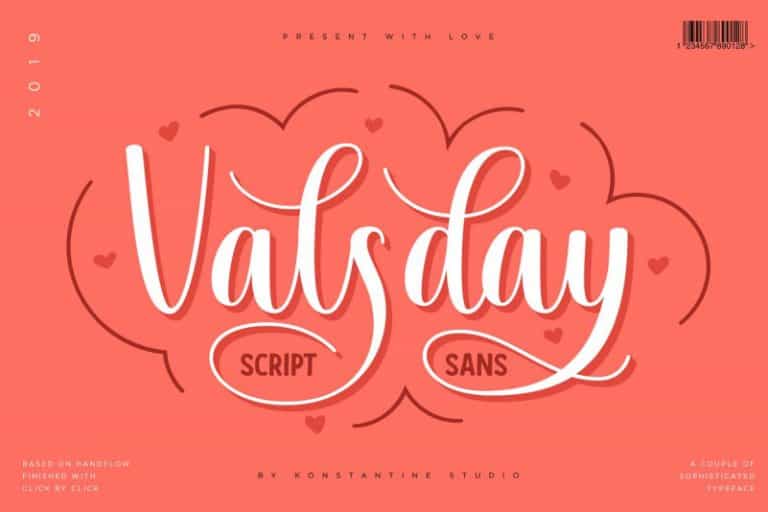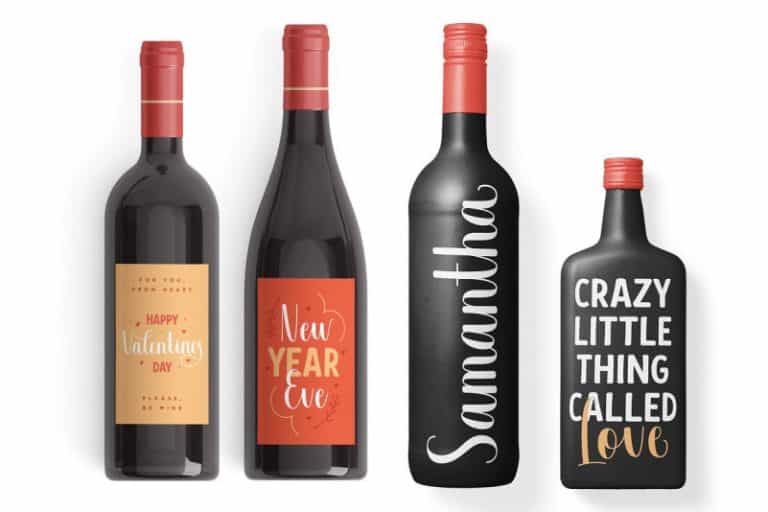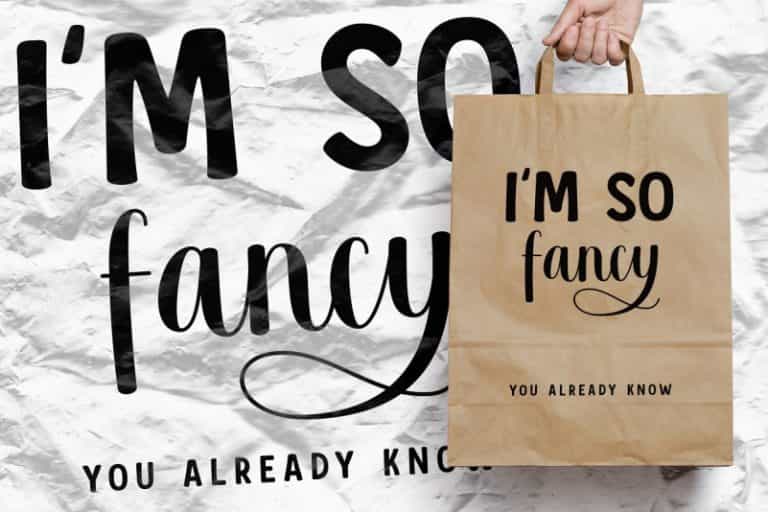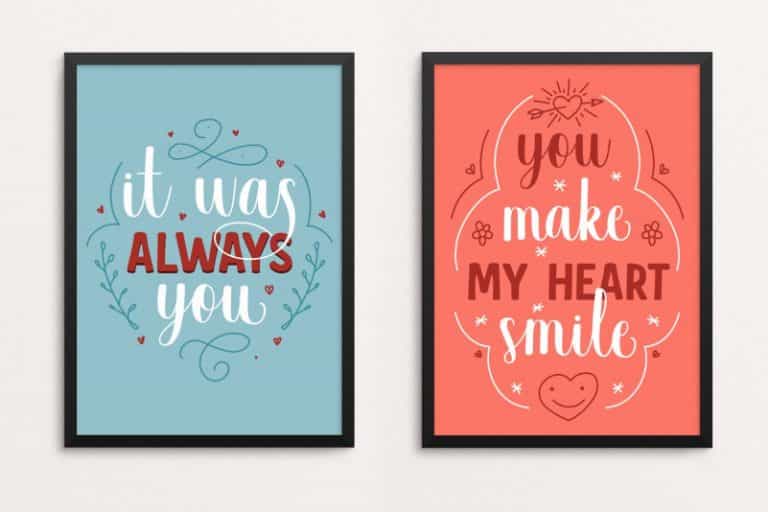
Discover Valsday Script and Sans Font, part of the Sans Serif Brush Handwritten collection—a versatile and unique font perfect for adding a personal touch to your projects. Download it for free and enjoy crafting designs with style, from invitations to social media posts. This font is available exclusively for personal use, giving you the freedom to create without limits. Unlock your creativity with Valsday Script and Sans Font today!
Here is the Valsday Script and Sans Font. A neat and stylish cursive font with a perfect flow in every letter. The modern calligraphic and lettering style is the inspiration for expressing the OG love that was carefully crafted by human hand. The bold sans-serif version was mixed with the regular font to make a good pair. Because you know the best couple is inseparable.